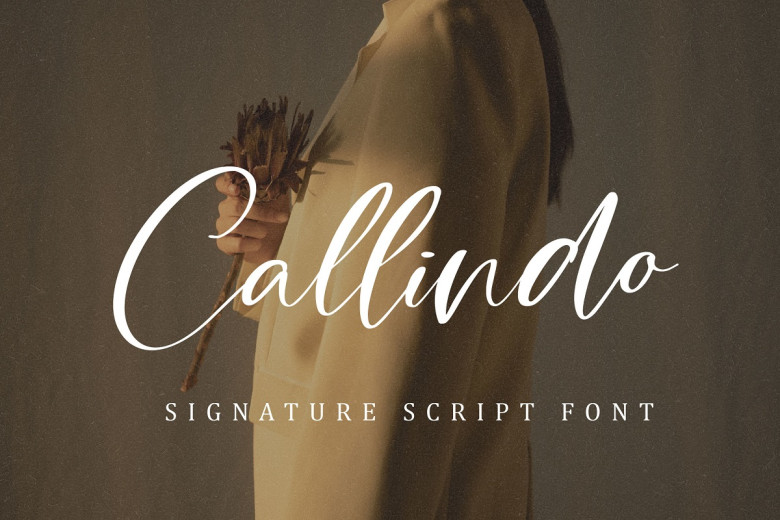
Callindo Font
Introducing the Callindo Signature Scipt! Its gentle unique design with elegant, graceful, and flowing style features extending flourishes that make this font suitable for branding, wedding invitations, and much more sophisticated designs.
Callindo Signature Script Font